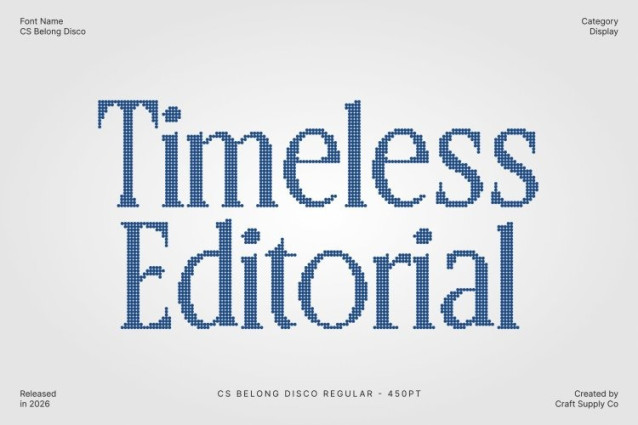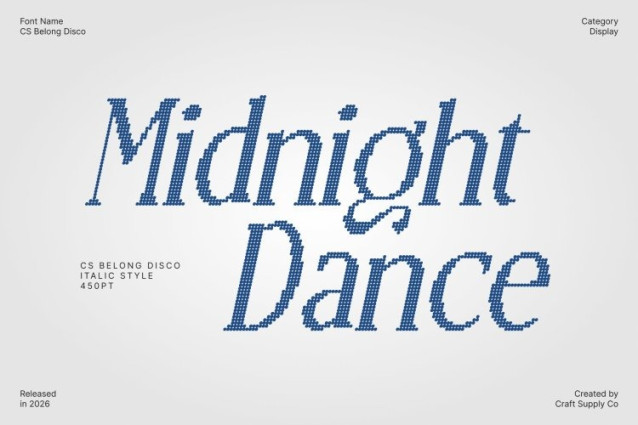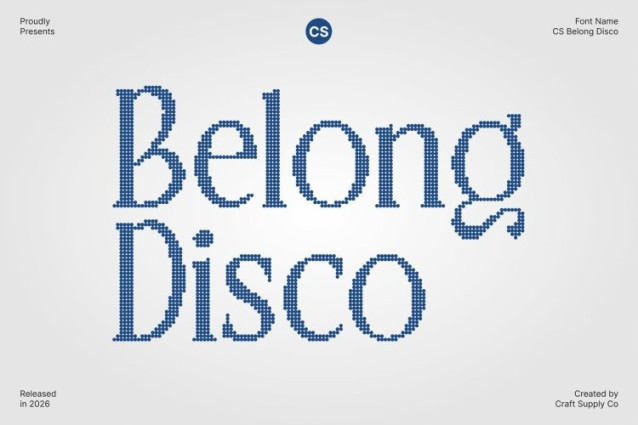
CS Belong Disco Font
CS Belong Disco Font This is an elegant serif font crafted to express refined luxury with a modern attitude. Defined by graceful curves, elongated proportions, and sleek contemporary detailing, this typeface delivers a sophisticated visual presence that feels polished, confident, and unmistakably premium. It blends timeless serif beauty with modern finesse, making it a powerful choice for elevated design work.
Elongated Letterforms with Flowing Refinement
The signature character of this font lies in its elongated forms and delicately sculpted curves. These refined details introduce vertical elegance and visual flow, giving every word a sense of height and sophistication. The smooth transitions and balanced contrast enhance readability while reinforcing a graceful, upscale aesthetic across both display and editorial applications.
Modern Luxury with Subtle Disco Glamour
While rooted in contemporary elegance, this font introduces a subtle disco-inspired polish expressed through rhythm, smooth curves, and a gentle sense of shine. This refined glamour adds energy and confidence without overpowering the design, resulting in a font that feels exclusive, stylish, and visually luminous.
Perfect for Luxury Branding, Editorials, and Fashion Design
Designed for premium environments, this font excels in luxury branding, fashion editorials, magazines, packaging, and high-end marketing materials. Its elegant serif construction elevates headlines, logos, and refined text compositions, communicating taste, sophistication, and modern prestige in every application.